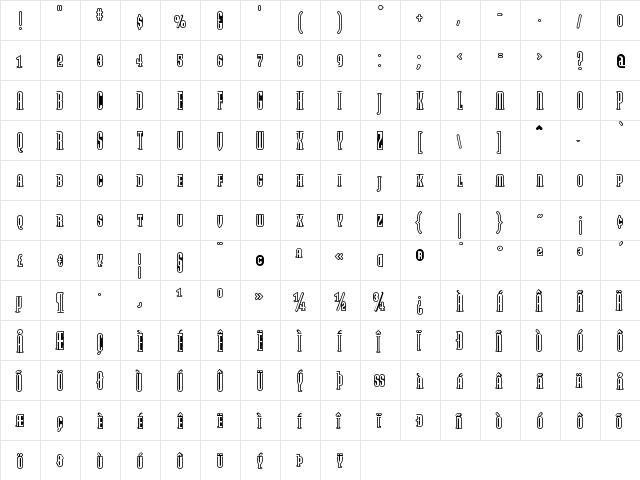
ModulaOutlinedSC Regular
| Designer | Zuzana Licko |
Design Context for ModulaOutlinedSC Typeface
ModulaOutlinedSC is built around its visual character rather than neutral utility — its distinctive forms are designed to make an impression at display sizes.
Font Pairing: Pair with a clean neutral sans-serif for body copy to let ModulaOutlinedSC's character lead without overwhelming the composition.
Pro Tip: Treat ModulaOutlinedSC as the centrepiece of your typographic hierarchy. One strong heading set in a decorative face can carry an entire layout.